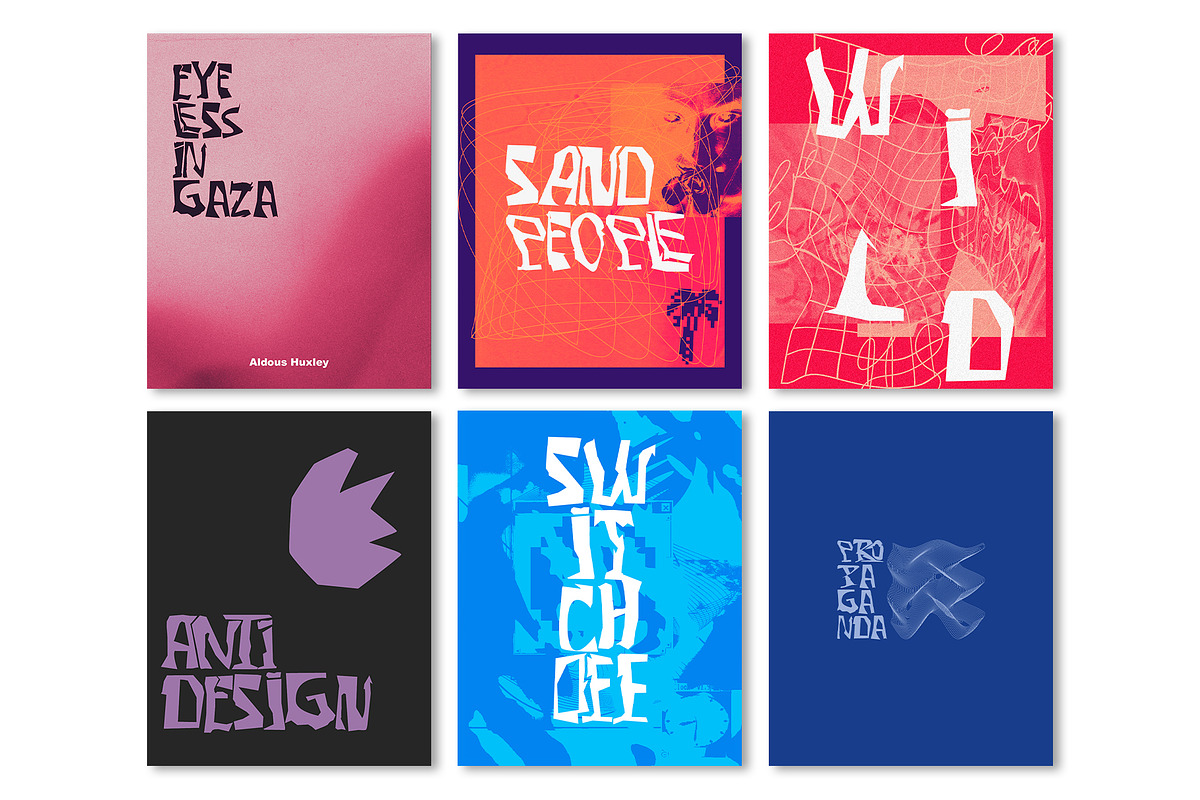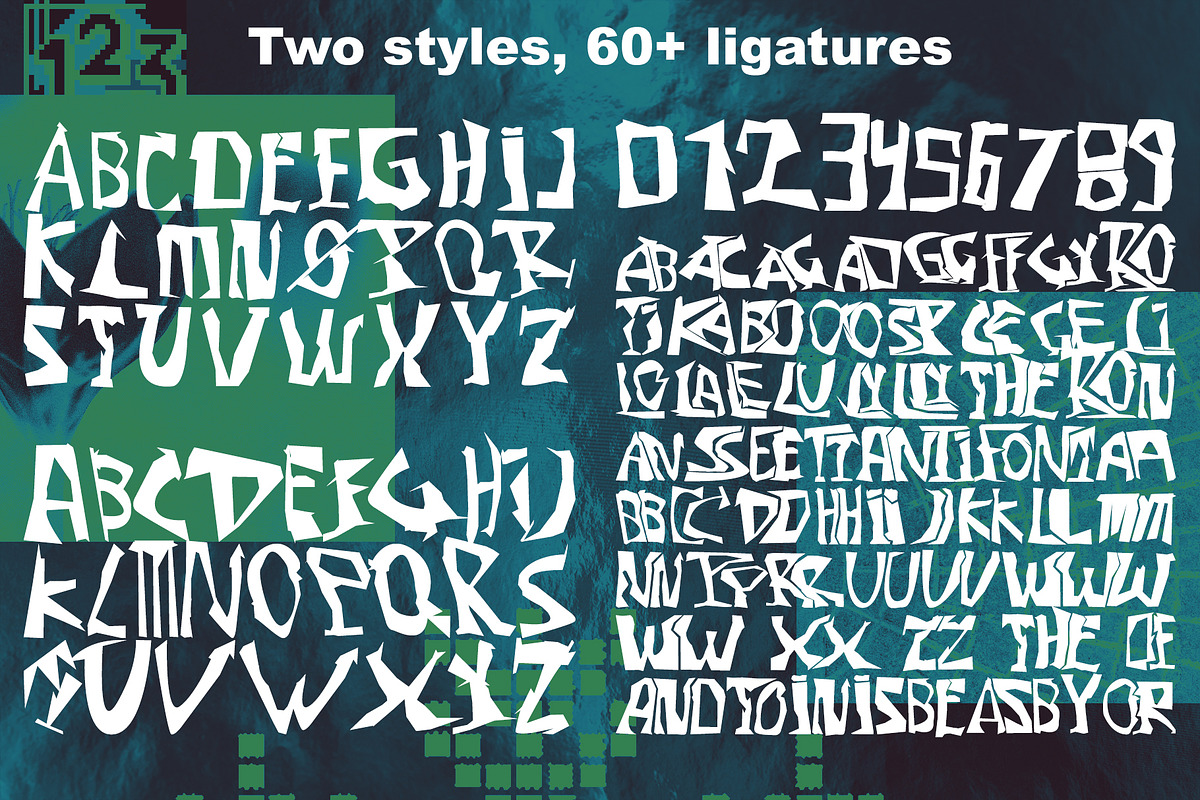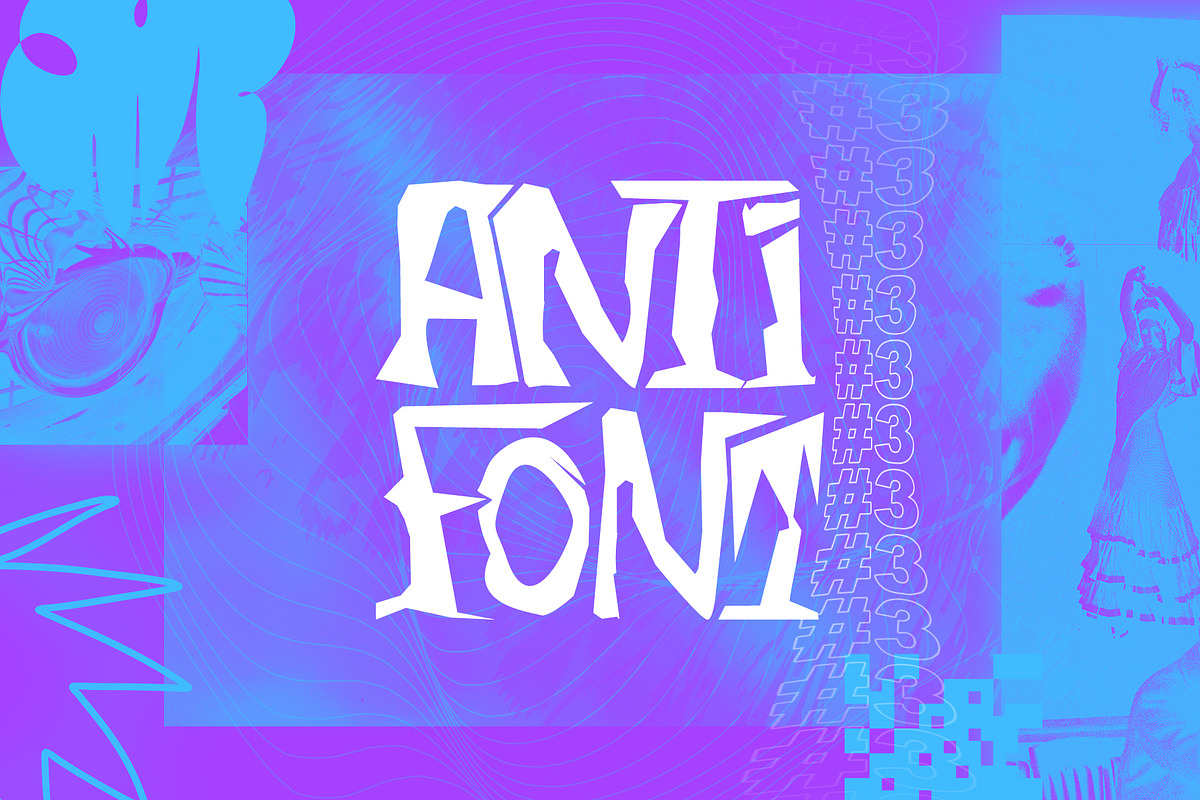
Anti-Font #3 | AntiDesign Collection
Anti-Font #3 - the solution for demonstratively impudent titles and headlines. As a part of the second volume of Anti-Design Collection - Digital Maximalism, Anti-Font#3 deconstructs the basics of a correct design, testing the boundaries between strange and unacceptable. It is built to become the energetic epicenter of the composition, but it also feels perfect in the chaos of a super congested design.